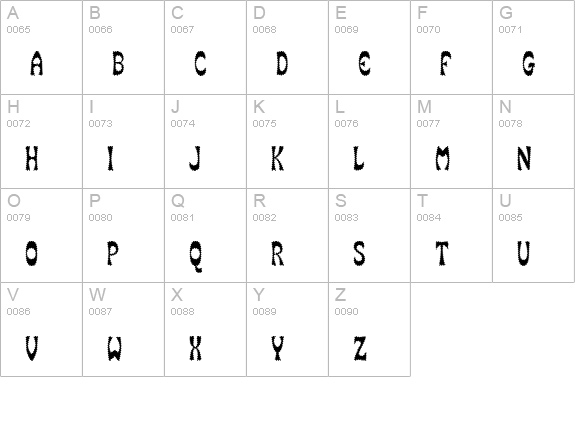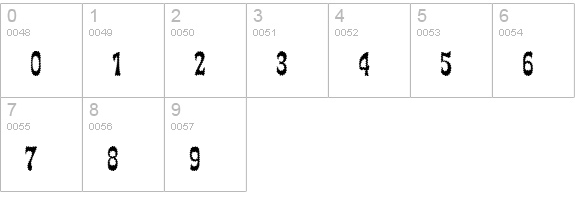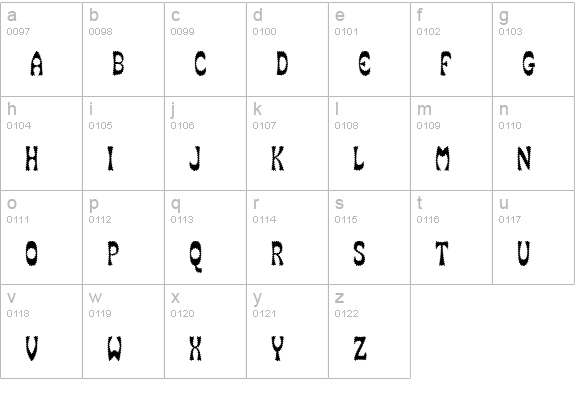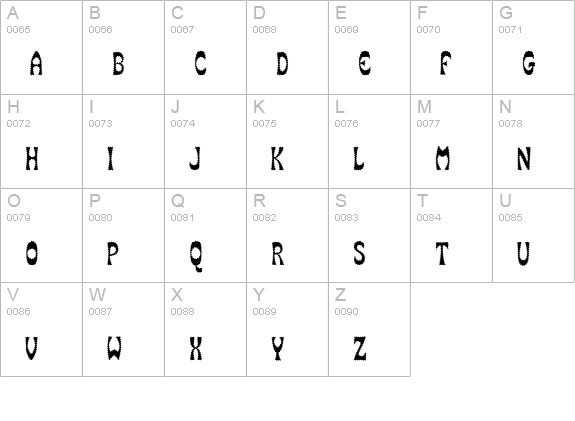
SmokeHouseWave Font Details
Introducing SmokeHouseWave, a breathtakingly bold and captivating font that will leave a lasting impression on any design project. This font exudes a sense of ruggedness and authenticity, while still maintaining a sleek and modern edge. With its unique blend of sharp lines and intricate details, SmokeHouseWave is perfect for making a statement in headlines, logos, posters, and more. Its strong and powerful presence demands attention and commands respect. But what truly sets SmokeHouseWave apart is its versatility. Whether you're looking to add a touch of sophistication to a luxury brand or create a bold and edgy design for a streetwear label, this font can do it all. Its ability to seamlessly adapt to any style or concept is a testament to its exceptional craftsmanship. And the best part? SmokeHouseWave is absolutely free. That's right, this extraordinary font can be downloaded for no cost at all, exclusively at FontsMarket.com. We believe that great design should be accessible to everyone, and that's why we are thrilled to offer SmokeHouseWave as a freely available font. So, why wait? Elevate your design projects to new heights with SmokeHouseWave. Download it today and let your creativity run wild.